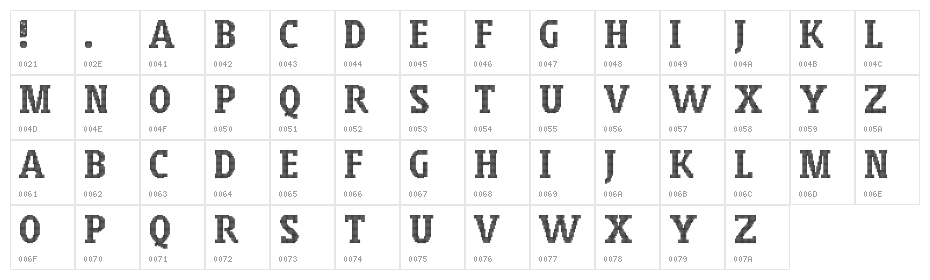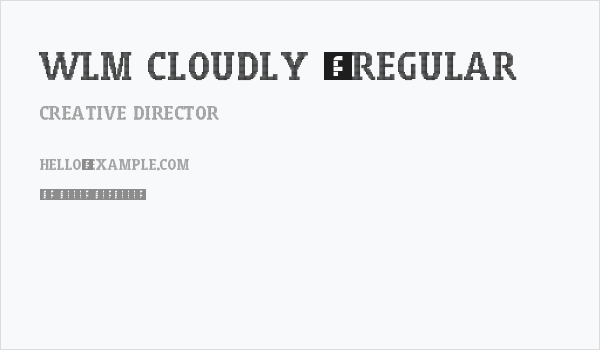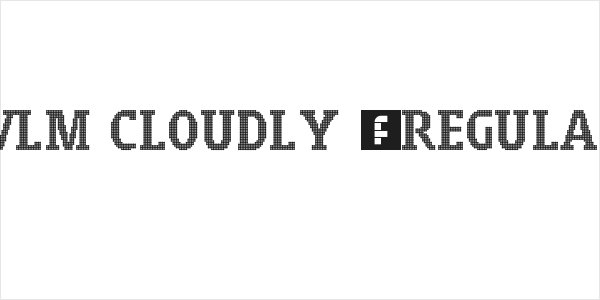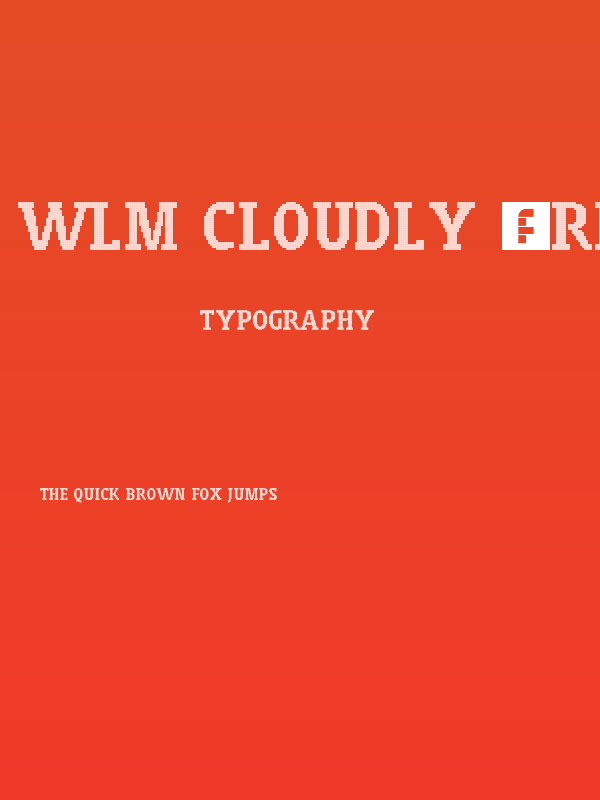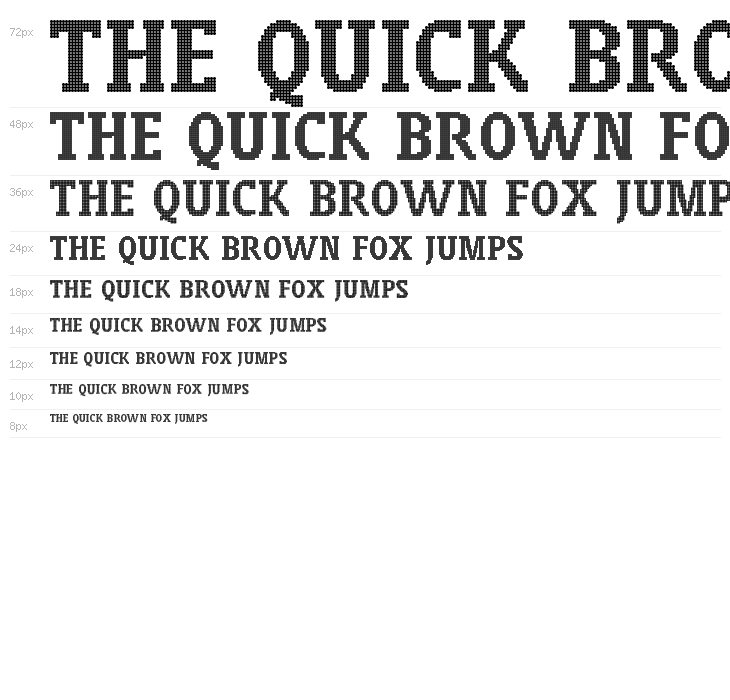
WLM Cloudly 2 Regular Font
WLM Cloudly 2 Regular Description
This font features a distinctive pixelated design, reminiscent of early digital displays and retro gaming aesthetics. Each character is constructed with a grid-like pattern, creating a bold and impactful visual style. The uppercase letters are uniform in height, with consistent spacing that enhances readability. The numbers and special characters maintain the same pixelated theme, ensuring a cohesive look across all text elements. This font's unique style makes it particularly suitable for projects that aim to evoke nostalgia or a tech-inspired theme.
| Overall Style | Retro, Digital |
| Proposed Projects | Ideal for retro gaming projects, tech-themed designs, digital art, and creative posters. |